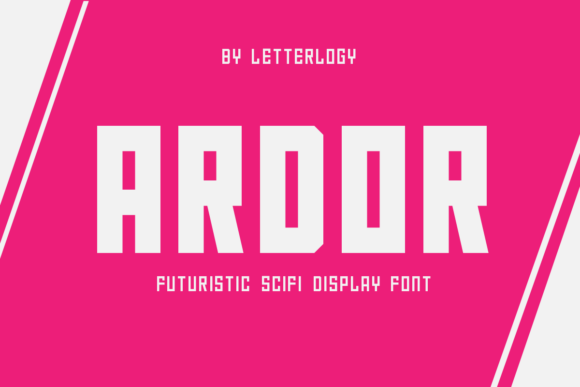
Introducing Ardor Font: A Futuristic Square Sans Serif Display Typeface
In the realm of typography, fonts play a crucial role in conveying messages, expressing emotions, and creating visual identities. Among the numerous fonts available, Ardor Font stands out as a futuristic square sans serif display typeface that embodies the simplicity and precision of modern design philosophy. In this article, we’ll delve into the world of Ardor Font, exploring its design characteristics, features, and uses.
What is Ardor Font?
Ardor Font is a sans serif display typeface that boasts a futuristic and modern aesthetic. Its design is rooted in the principles of simplicity, precision, and functionality, making it an ideal choice for designers seeking to create visually striking and cohesive brand identities. The font’s square sans serif design gives it a distinctive and edgy look, perfect for headlines, titles, and promotional materials.
Design Characteristics of Ardor Font
The design of Ardor Font is characterized by its:
- Geometric shapes: The font features geometric shapes, such as squares and rectangles, which provide a sense of stability and structure.
- Clean lines: Ardor Font boasts clean and precise lines, giving it a modern and futuristic feel.
- Lack of ornamentation: The font’s sans serif design ensures that it remains uncluttered and focused on the essential elements.
- Bold and condensed style: Ardor Font is designed to be bold and condensed, making it perfect for headlines and titles that require attention-grabbing typography.
Features of Ardor Font
Ardor Font offers a range of features that make it an attractive choice for designers:
- High legibility: The font’s clean design and precise lines ensure that it remains highly legible, even at smaller sizes.
- Versatility: Ardor Font can be used across various design applications, from digital media to print materials.
- Customization options: The font may offer customization options, such as variable font styles, weights, and widths, allowing designers to adapt it to their specific needs.
Uses of Ardor Font
Ardor Font’s unique design characteristics make it suitable for a range of design applications:
- Headlines and titles: The font’s bold and condensed style makes it perfect for headlines, titles, and promotional materials.
- Branding and identity: Ardor Font can be used to create a cohesive brand identity, particularly for companies operating in the technology, innovation, or design sectors.
- Digital media: The font’s clean design and high legibility make it suitable for digital media, including websites, mobile apps, and social media graphics.
- Print materials: Ardor Font can be used in print materials, such as posters, flyers, and brochures, to create visually striking and attention-grabbing designs.
Tips for Using Ardor Font Effectively
To get the most out of Ardor Font, consider the following tips:
- Use it sparingly: Ardor Font’s bold style can be overwhelming if overused. Use it sparingly to create visual hierarchy and emphasize key messages.
- Pair it with complementary fonts: Combine Ardor Font with complementary fonts to create visual contrast and add depth to your designs.
- Experiment with colors and textures: Ardor Font’s clean design allows it to work well with various colors and textures. Experiment with different combinations to find the perfect fit for your design.
- Consider font sizes and weights: Use Ardor Font’s various weights and sizes to create visual hierarchy and add emphasis to specific design elements.
Ardor Font is a futuristic square sans serif display typeface that embodies the simplicity and precision of modern design philosophy. Its unique design characteristics, features, and uses make it an attractive choice for designers seeking to create visually striking and cohesive brand identities. By understanding the design principles and characteristics of Ardor Font, designers can harness its potential to create stunning designs that capture attention and convey messages effectively.
FAQs About Ardor Font
- What is Ardor Font? Ardor Font is a futuristic square sans serif display typeface designed for modern and innovative designs.
- What are the key design characteristics of Ardor Font? Ardor Font features geometric shapes, clean lines, a lack of ornamentation, and a bold and condensed style.
- What are the uses of Ardor Font? Ardor Font is suitable for headlines, titles, branding and identity, digital media, and print materials.
- How can I use Ardor Font effectively? Use Ardor Font sparingly, pair it with complementary fonts, experiment with colors and textures, and consider font sizes and weights to create visual hierarchy.